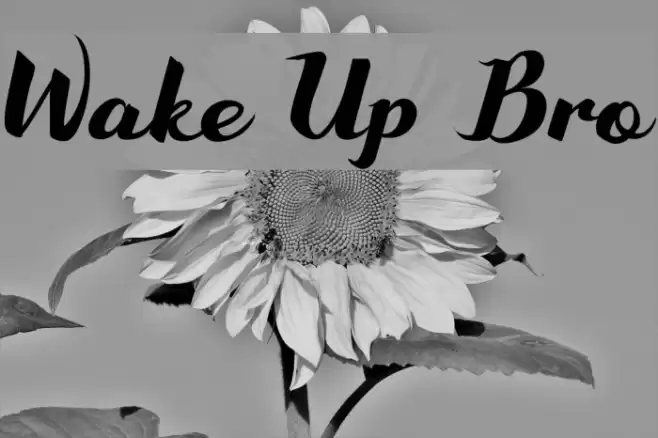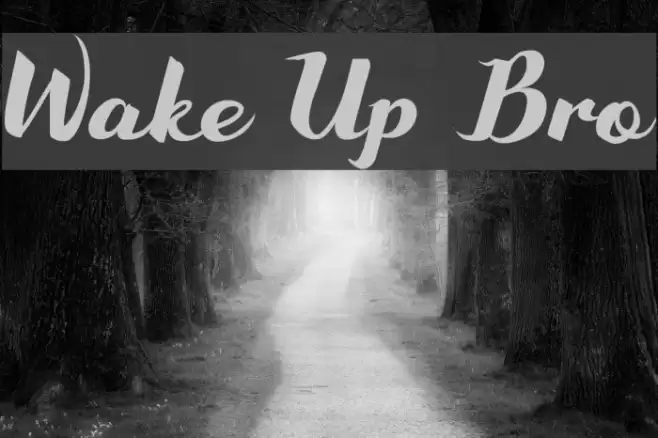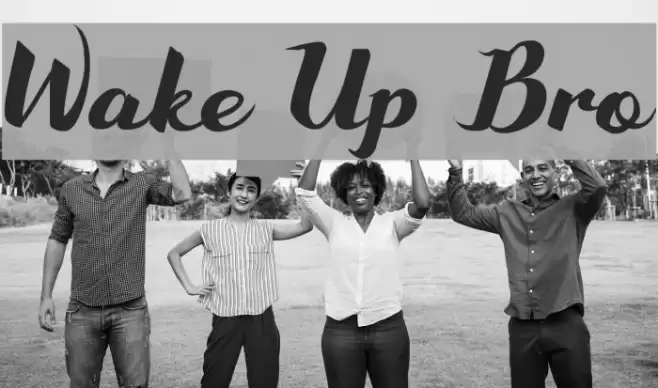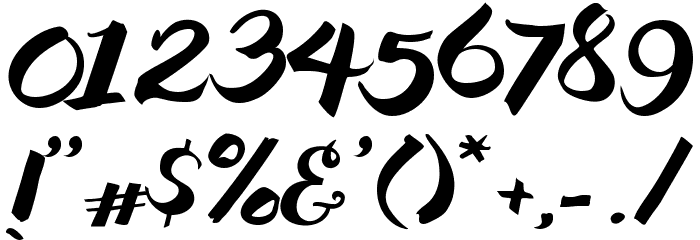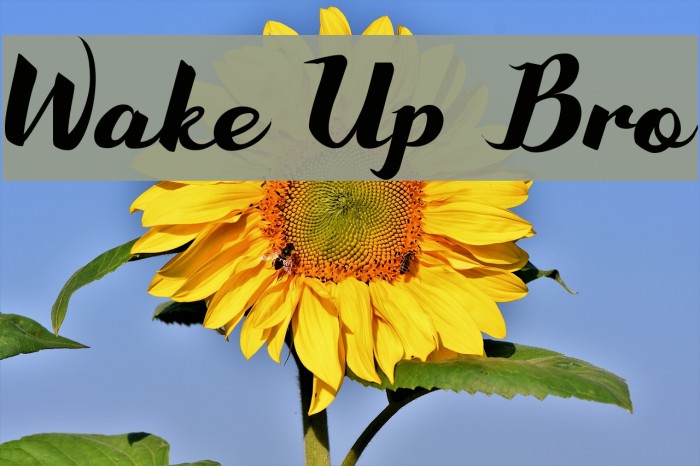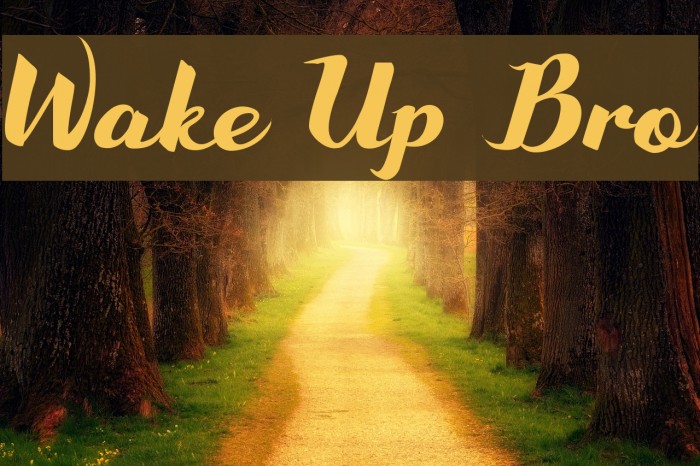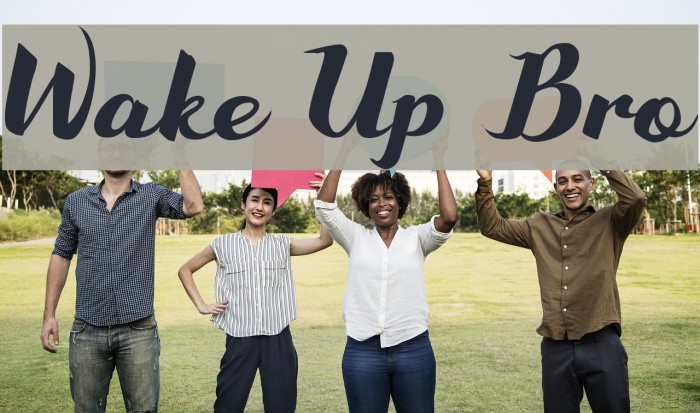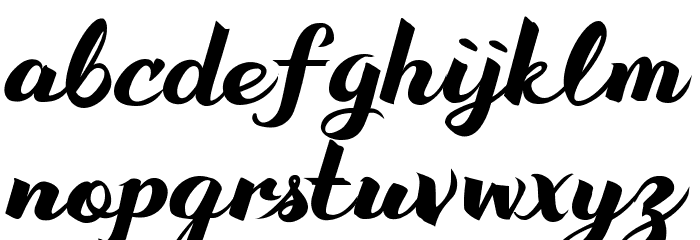
Wake Up Bro Font
Wake Up Bro Description
This font features a bold and expressive script style, characterized by its flowing, cursive letters that convey a sense of elegance and dynamism. The uppercase letters are particularly striking, with sweeping curves and dramatic flourishes that give them a sense of movement. The lowercase letters maintain the same fluidity, with a slightly more compact design that complements the uppercase characters. The numerals are equally bold, with a consistent stroke width that ensures readability. Special characters are designed with the same attention to detail, integrating seamlessly with the overall style. This font's high contrast between thick and thin strokes adds to its visual impact, making it ideal for attention-grabbing designs.
A bold, expressive script font with high contrast and elegant flourishes from Script fonts.